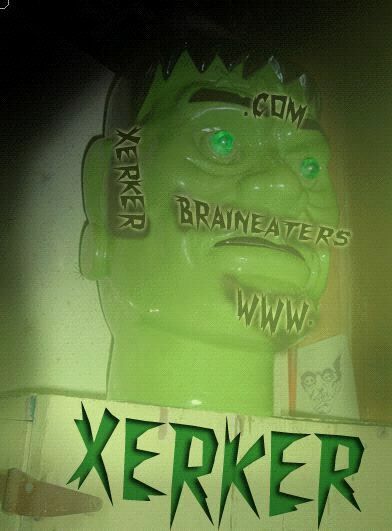
Xerker by B.O. Nelson of BrainEaters.com is a free jagged horror display font built from sharp, uneven strokes. Its capital forms lurch between broad wedges and thin spikes, with chopped edges that suggest splintered wood or torn metal. The irregular widths and abrupt diagonals keep the lettering tense and deliberately unstable.
Horror and underground music are its clearest territory, especially for film posters, album packaging, and event graphics that need lettering with a raw, dangerous edge. It is strongest in a title treatment, where the angular forms can become part of a slasher, monster, or extreme-metal theme rather than ordinary text.